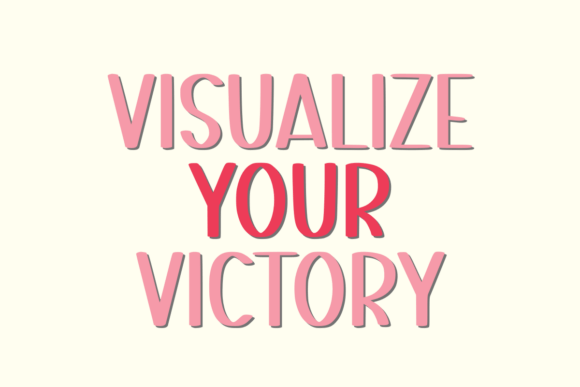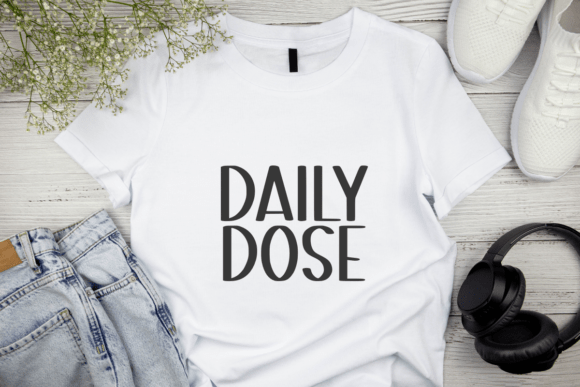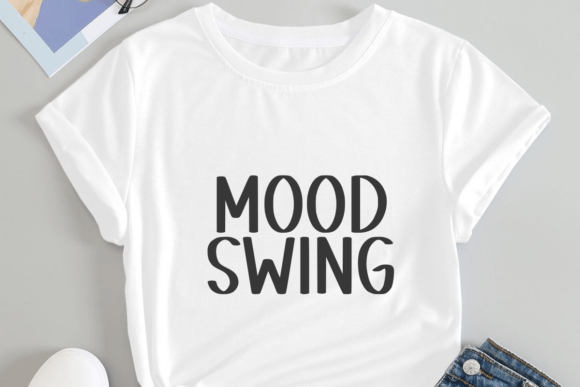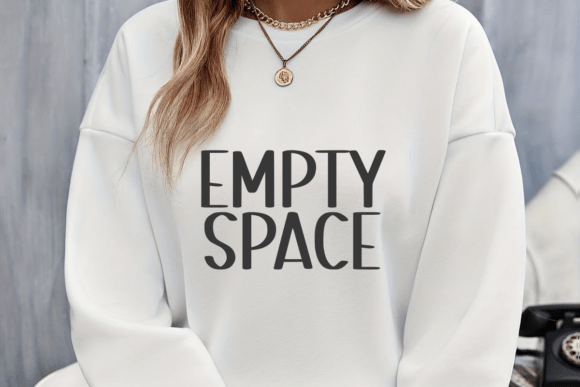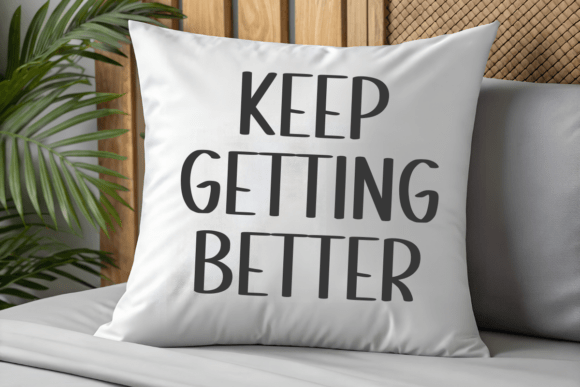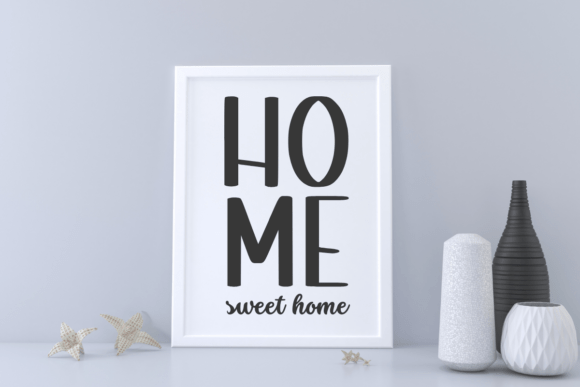
Introducing Bright March: The Cute Sans Serif Handwriting Font for Crafty Projects
Are you a crafter, designer, or DIY enthusiast looking for a font that can add a personal touch to your projects? Look no further than Bright March, a delightful sans serif handwriting font that exudes a soft, friendly, and natural look. This charming font is perfect for craft projects, planners, stickers, kids’ worksheets, classroom printables, and DIY designs that require a warm, handcrafted feel.
The Characteristics of Bright March
Bright March is designed to bring a sense of warmth and approachability to your designs. Its simple strokes and smooth curves make it easy to read and visually appealing. The font’s sans serif design gives it a clean and modern look, while its handwriting style adds a touch of personality and whimsy. Whether you’re creating quotes, greeting cards, kids’ labels, or coloring pages, Bright March is the perfect choice.
Perfect for Crafting Moms and DIY Enthusiasts
Bright March is a dream come true for crafting moms and DIY enthusiasts who love working with adorable handwritten styles. The font’s smooth curves and simple strokes make it easy to cut using popular cutting machines like Cricut and Silhouette. This means you can effortlessly incorporate Bright March into your craft projects, such as scrapbooks, bullet journals, and playful graphic projects.
Endless Possibilities for Creative Projects
The versatility of Bright March is one of its most significant advantages. You can use this font for a wide range of creative projects, including:
- Quotes: Add a personal touch to your inspirational quotes and sayings.
- Greeting cards: Create beautiful, handmade-style greeting cards for special occasions.
- Kids’ labels: Design fun and colorful labels for kids’ school supplies, folders, and books.
- Coloring pages: Add a touch of whimsy to your coloring pages and worksheets.
- Worksheets: Create engaging and interactive worksheets for kids.
- Bullet journals: Add a personal touch to your bullet journal or planner.
- Scrapbooks: Use Bright March to create beautiful, handmade-style scrapbook pages.
- Playful graphic projects: Add a touch of personality to your graphic projects, such as posters, flyers, and brochures.
Why Choose Bright March?
So, why should you choose Bright March for your creative projects? Here are just a few reasons:
- Unique and eye-catching design: Bright March has a distinctive, handcrafted look that sets it apart from other fonts.
- Easy to read: The font’s simple strokes and smooth curves make it easy to read, even at small sizes.
- Versatile: Bright March can be used for a wide range of creative projects, from craft projects to graphic design.
- Compatible with popular cutting machines: Bright March is easy to cut using Cricut and Silhouette machines.
Get Creative with Bright March
If you’re looking for a font that can add a personal touch to your creative projects, look no further than Bright March. With its soft, friendly, and natural look, this font is perfect for crafty projects, DIY designs, and graphic projects. So why wait? Download Bright March today and start creating beautiful, handmade-style designs that showcase your personality and creativity.
Whether you’re a seasoned designer or a crafting mom, Bright March is the perfect addition to your font collection. Its unique and eye-catching design, ease of use, and versatility make it an excellent choice for anyone looking to add a touch of personality to their creative projects.